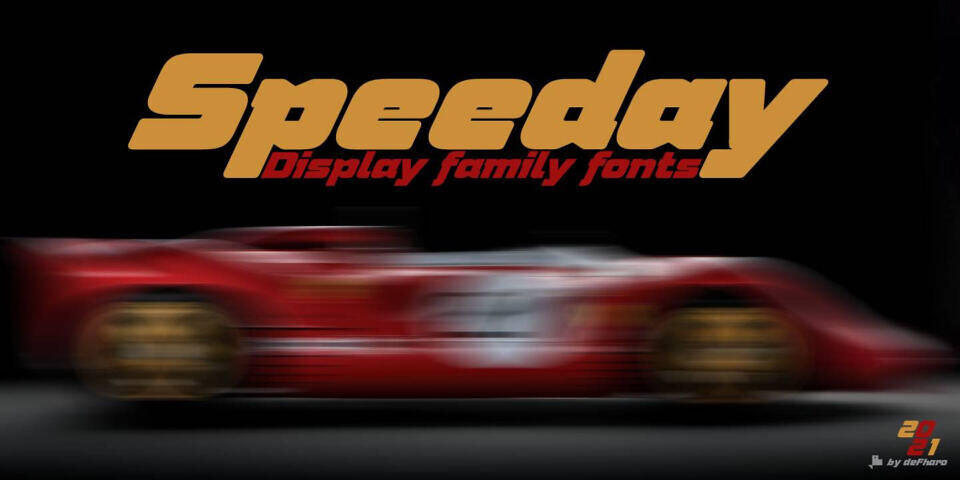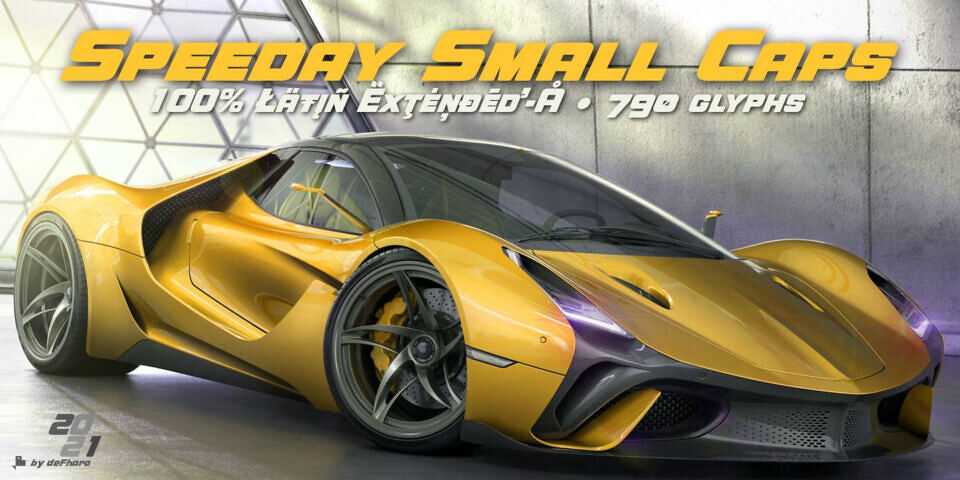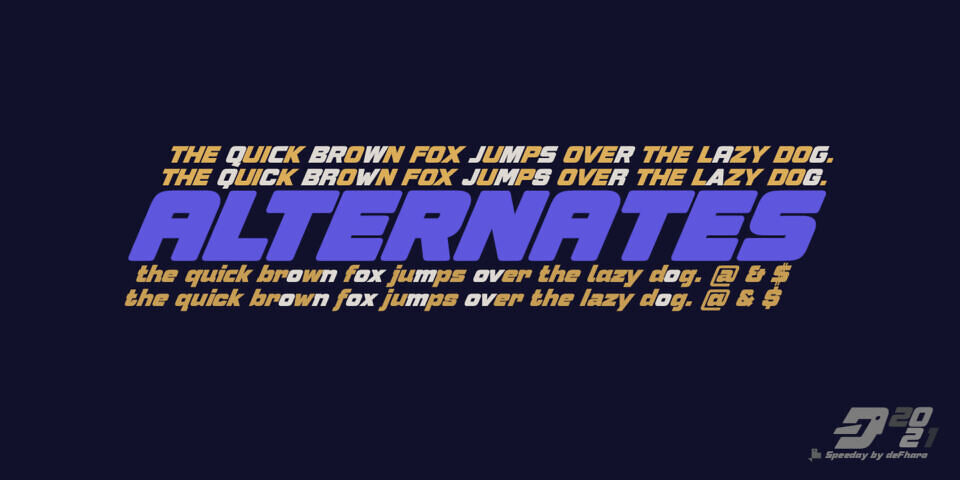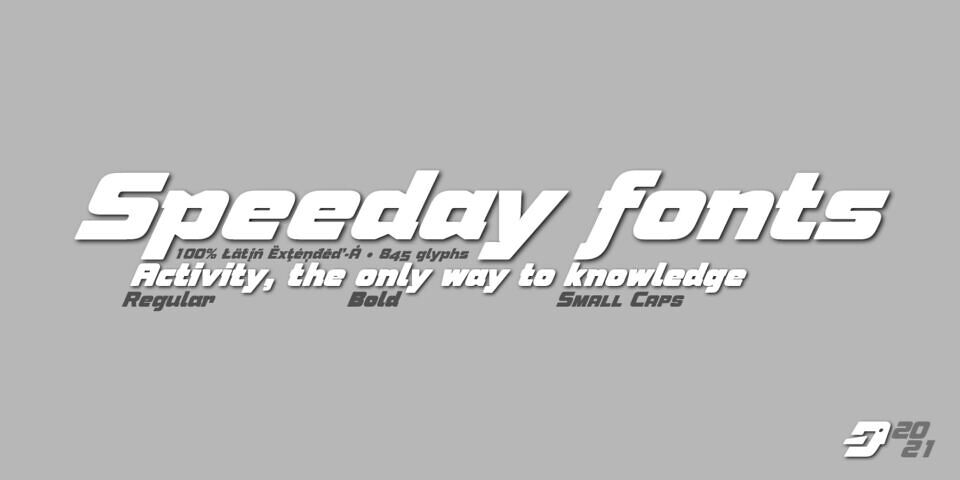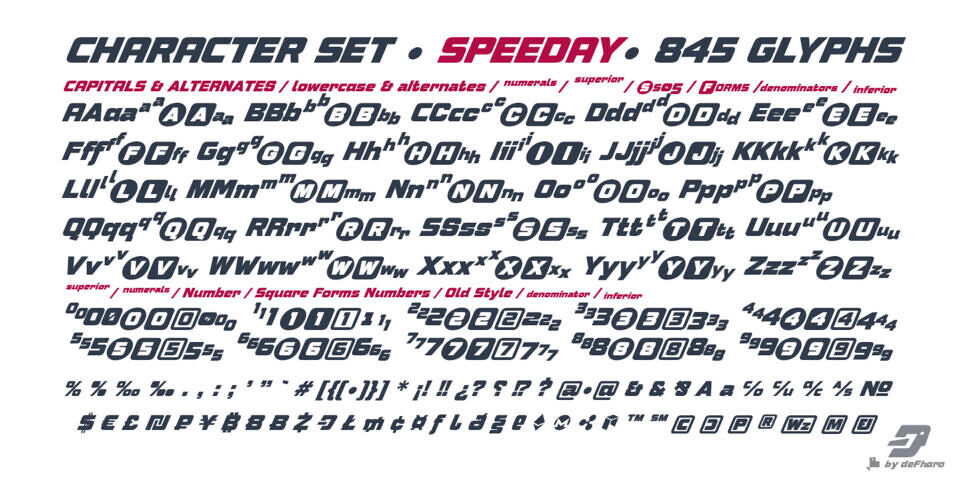
The Speeday font is a sans serif typeface with a distinctive 23° slant and rounded edges. It features three styles: Regular, Bold, and Small Caps. Each style includes multiple numeral sets, uppercase letters, and alternative characters, along with advanced OpenType capabilities.
Thick typeface with a contemporary appearance that provides great dynamism to the texts written with it, its use in graphic design, editorial and advertising guarantees originality, difference and maximum readability, the kerning has been carefully configured in all versions.